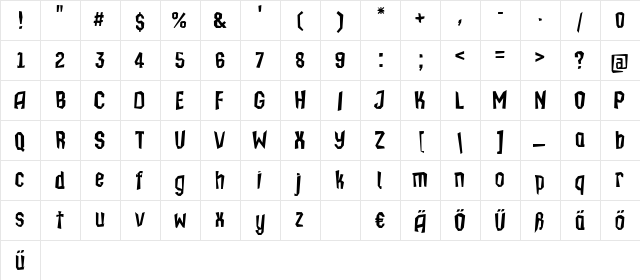
IsleOfTheDead Regular
Design Context for IsleOfTheDead Typeface
IsleOfTheDead is a composed and adaptable typeface that performs quietly and consistently across a wide range of design contexts.